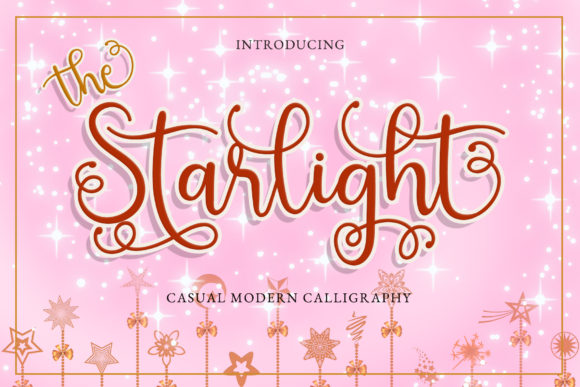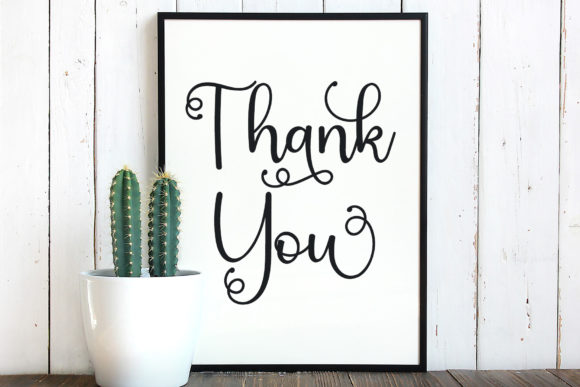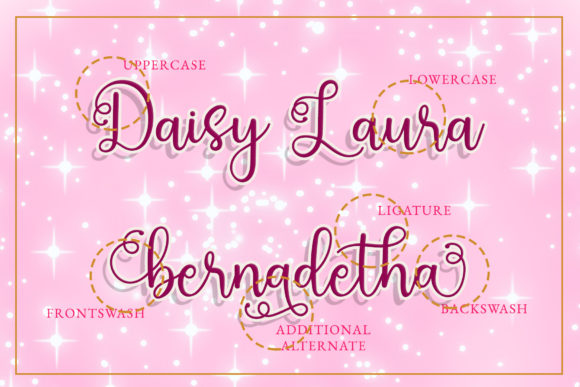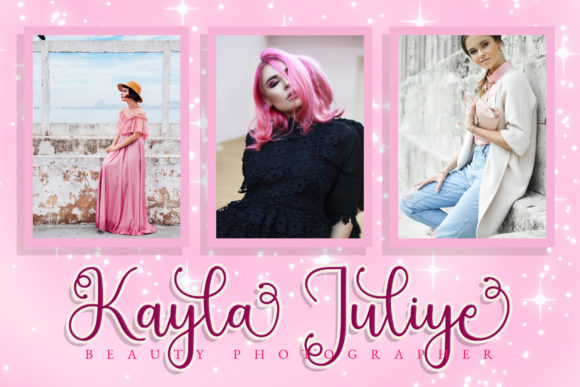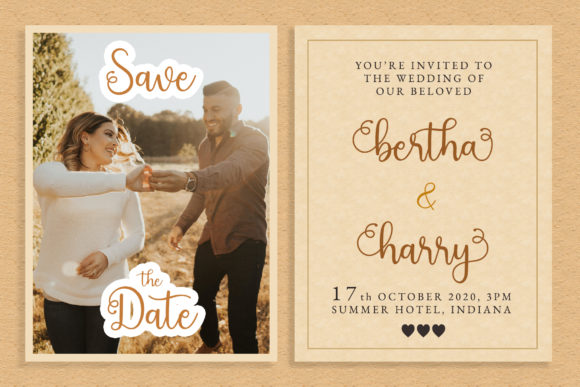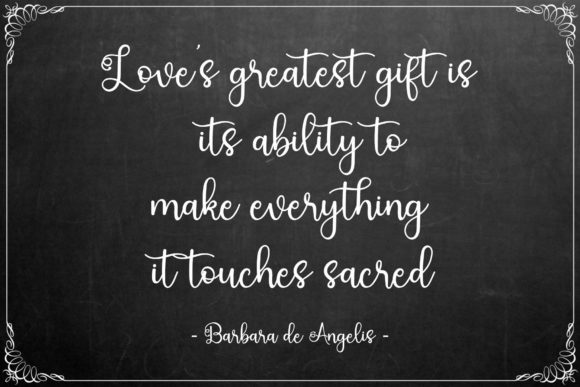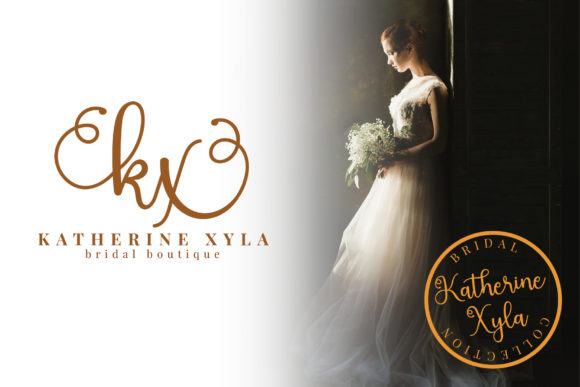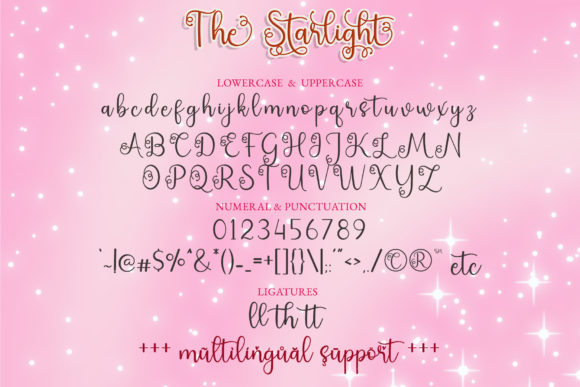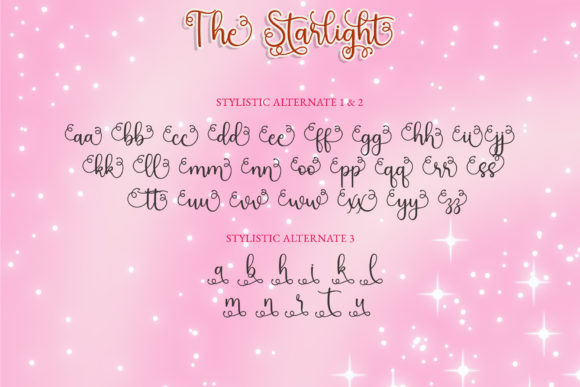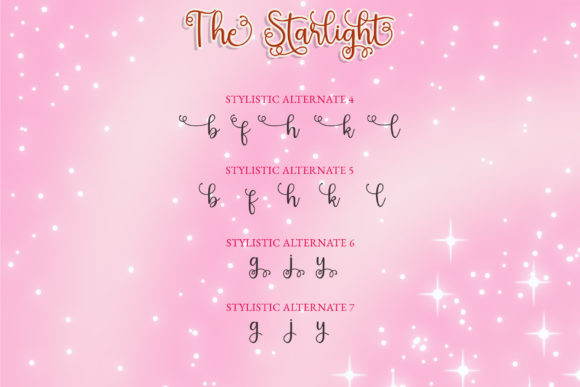
The Starlight Font
About The Starlight Font
The Starlight is a cute and modern script font that will take your designs to the next level! Fall in love with its authentic feel and use it to create gorgeous wedding invitations, beautiful stationary art, eye-catching social media posts, and cute greeting cards.